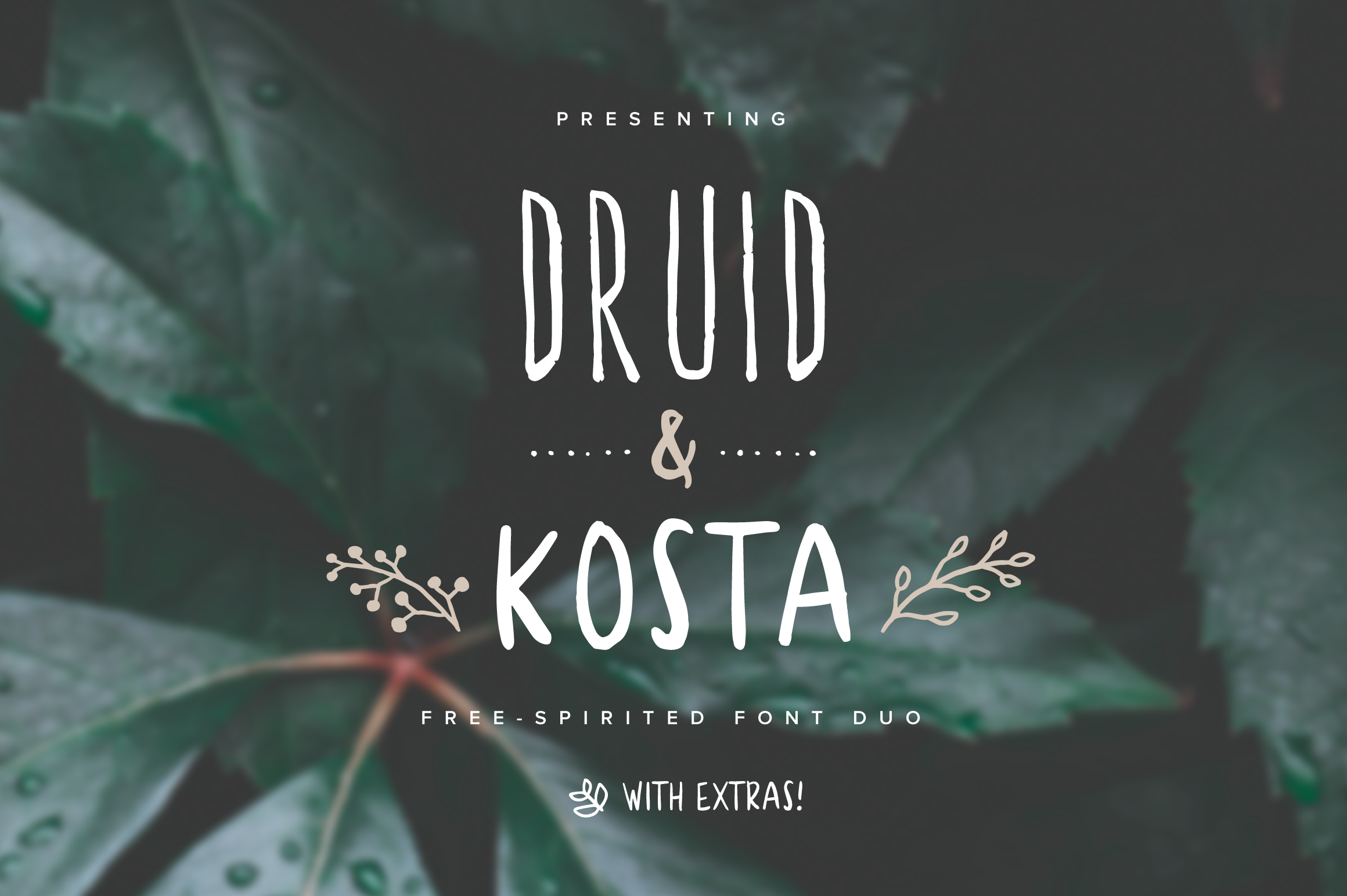
Druid & Kosta Typeface
Greetings creative people! Say hello to Druid and Kosta, a brand new pair of handwritten fonts. Each of them has a completely different styles but boy, do they work well together.
Druid and Kosta are perfect for branding works, websites, handrawn illustrations, printed graphics such as cards, packagings and much more.
The imperfections inherited by these two fonts will only add unique personalities to your design.
Druid is a rigid, condensed, all-caps font that is just perfect for titles and captions. However it’s suitable for paragraphs too.
Kosta, being an easygoing brush script font that it is contains both upper and lowercase – very suitable for long paragraphs as well as titles and headers.
Last but not least, the extras! This font duo comes with a generous nature-inspired illustrations that you can use freely in your projects.